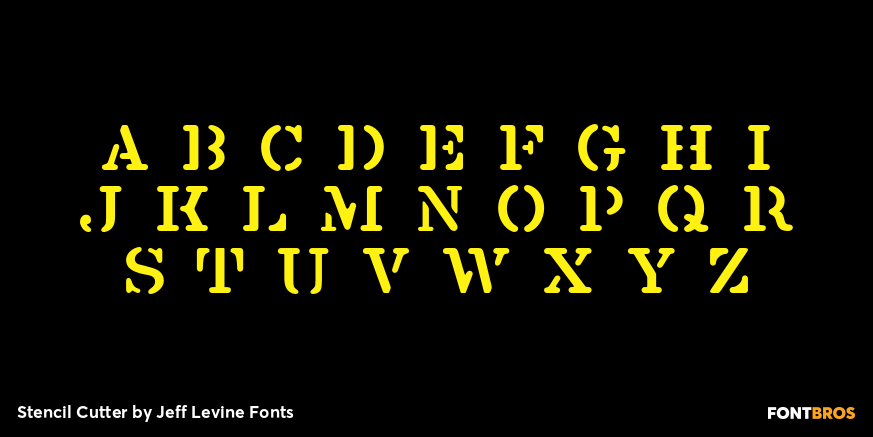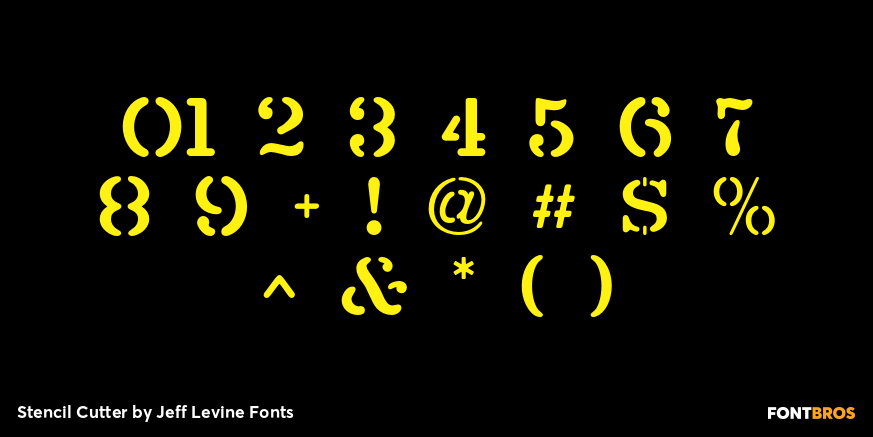
Stencil Cutter
Modeled after some antique stencil cutting tools spotted in an online auction, Stencil Cutter JNL portrays the look of hand tooled lettering. The rounded-end characters have their own personality and this eccentricity provides a warmth and charm from times past.